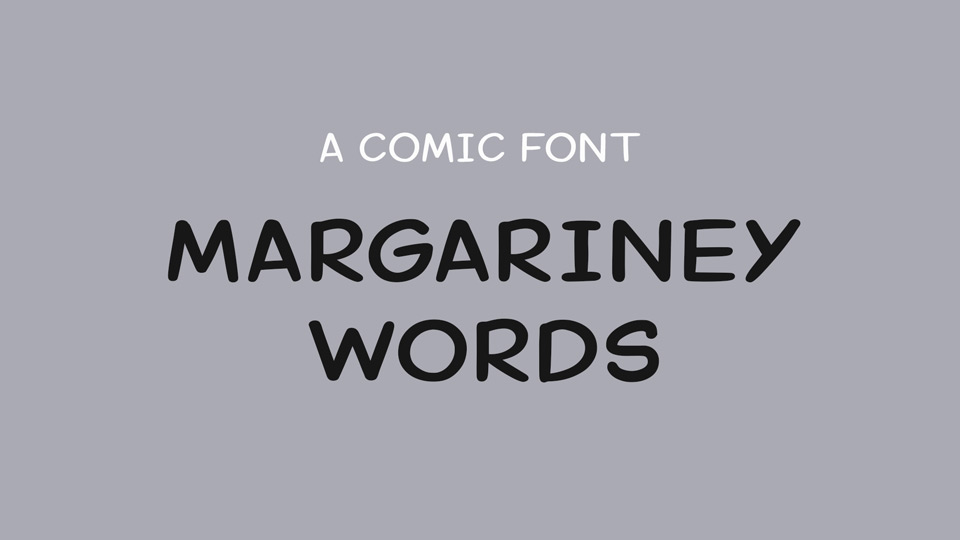
Download Margariney Words font, a comic typeface that comes in two styles and two versions. Margariney Words is an excellent choice for creating fun cartoon casual look and feel.